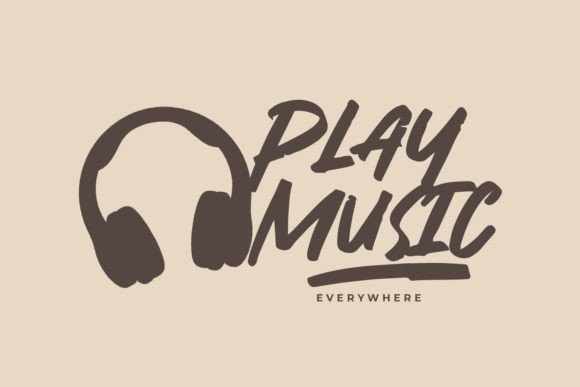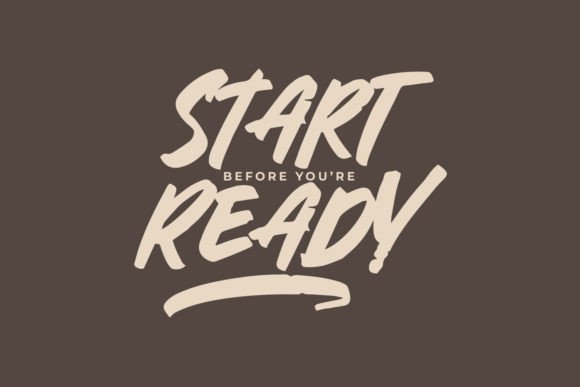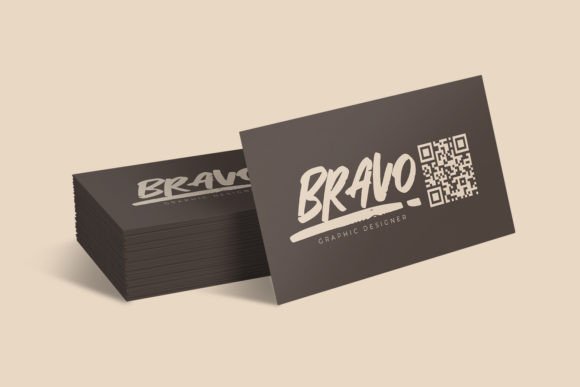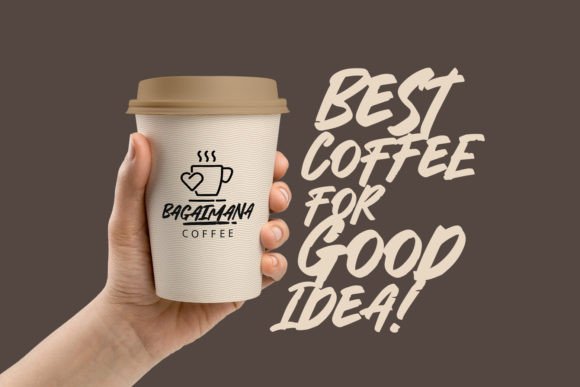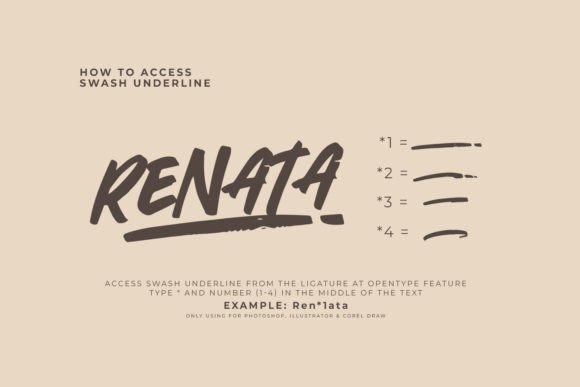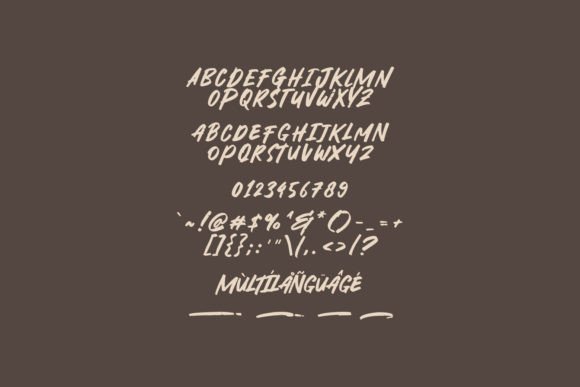
Introducing Glowdex Font: The Ultimate Modern Bold Brush Font
Are you tired of using the same old fonts for your designs? Look no further! Glowdex Font is here to revolutionize your creative projects with its modern bold brush style. Perfect for posters, logos, magazines, book covers, banners, and many more, this quirky handwritten font is sure to make your designs stand out.
What is Glowdex Font?
Glowdex Font is a modern bold brush font that boasts a unique and quirky personality. Its handwritten style gives it a personal touch, making it perfect for designers and crafters who want to add a bit of character to their work. With its bold and eye-catching appearance, Glowdex Font is sure to grab attention and leave a lasting impression.
Features of Glowdex Font
- Modern Bold Brush Style: Glowdex Font features a modern bold brush style that is perfect for creating eye-catching designs.
- Quirky Handwritten Personality: The font’s handwritten style gives it a quirky and personal touch, making it perfect for designers and crafters who want to add a bit of character to their work.
- Highly Versatile: Glowdex Font can be used for a wide range of projects, including posters, logos, magazines, book covers, banners, and many more.
- Easily Customizable: The font is easily customizable, allowing you to match it to your specific design needs.
Glowdex Font is perfect for designers and crafters who want to add a bit of personality to their work. Whether you’re creating posters, logos, or book covers, this font is sure to make your designs stand out. Its quirky handwritten style gives it a unique and eye-catching appearance that is sure to grab attention.
Use Cases for Glowdex Font
- Posters: Use Glowdex Font to create eye-catching posters that grab attention and leave a lasting impression.
- Logos: Create unique and memorable logos that showcase your brand’s personality with Glowdex Font.
- Magazines: Use Glowdex Font to add a bit of personality to your magazine designs and make them stand out.
- Book Covers: Create eye-catching book covers that grab attention and make your book stand out with Glowdex Font.
- Banners: Use Glowdex Font to create bold and eye-catching banners that showcase your message.
Why Choose Glowdex Font?
There are many reasons why you should choose Glowdex Font for your design projects. Here are a few:
- Unique and Eye-Catching: Glowdex Font has a unique and eye-catching appearance that is sure to grab attention.
- Highly Versatile: The font can be used for a wide range of projects, making it a great addition to your font library.
- Easily Customizable: Glowdex Font is easily customizable, allowing you to match it to your specific design needs.
- Supports Multiple Languages: The font supports multiple languages, making it perfect for designers and crafters who work with clients from around the world.